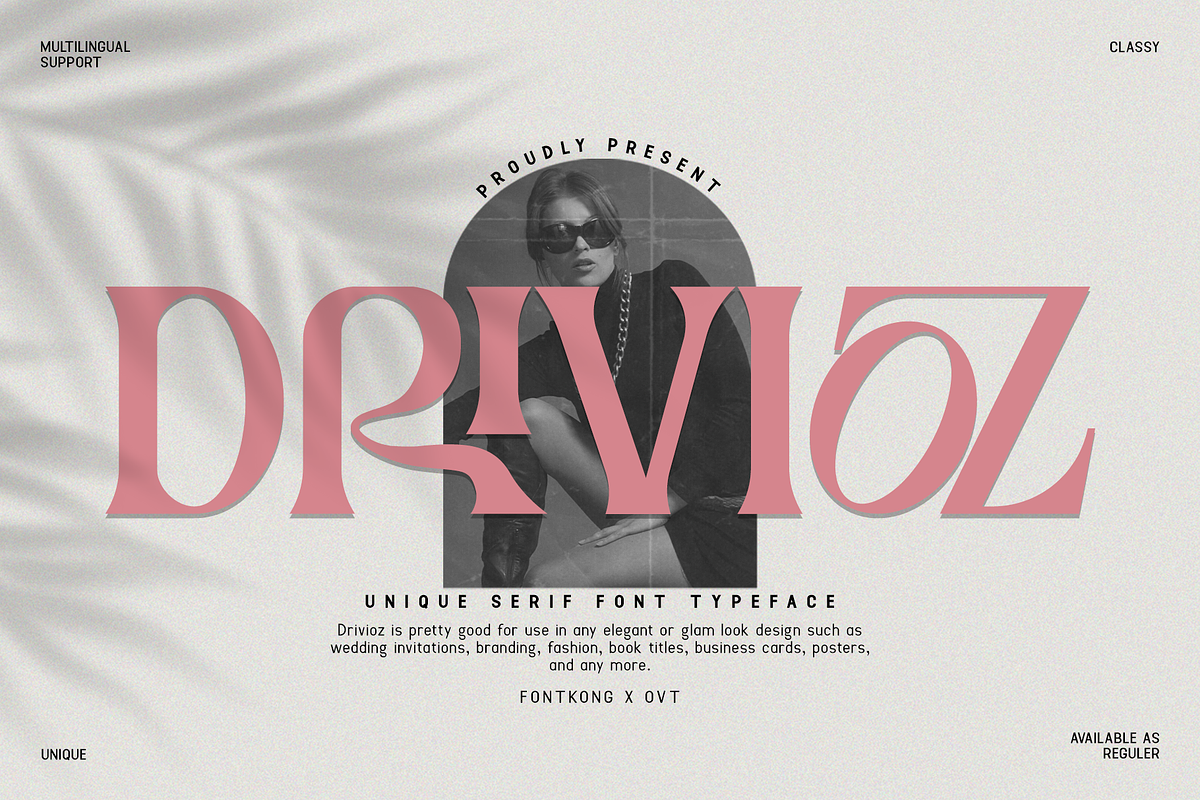
Drivioz – Unique Serif Typeface Font Free Download is a modern and artistic serif font with a distinctive personality. Featuring sharp edges, creative curves, and eye-catching details, Drivioz is perfect for editorial layouts, branding, fashion campaigns, packaging, and statement-making headlines.
This typeface blends traditional serif structure with experimental design, offering a fresh twist on classic elegance. Whether you're building a high-end logo, a stylish magazine spread, or a bold website header, Drivioz adds sophistication and uniqueness to your typography.